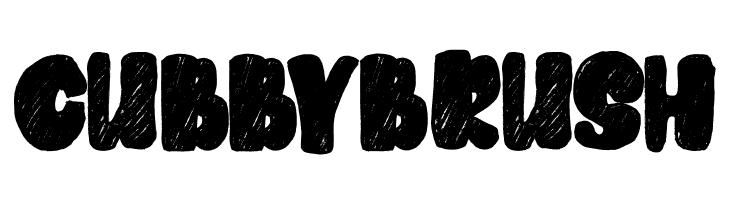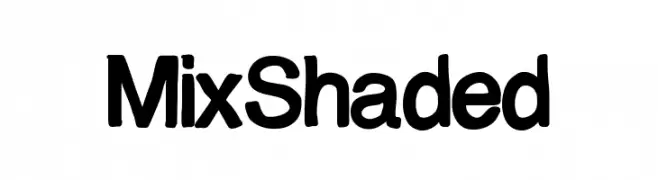
A playful, bold font with rounded edges and a friendly appearance.
A playful, hand-drawn font with a whimsical and casual style.
A classic serif font with medium contrast and rounded serifs, offering a vintage yet modern appeal.
( Fonts by madeDeduk )
Bold, modern font with characters enclosed in shield shapes.
( Fonts by Yasuko )
A bold, decorative font with characters enclosed in patterned circles.
( Fonts by Eliot Truelove )
A playful, rustic font with a hand-drawn, textured appearance.
( Fonts by Eliot Truelove )
A playful, rustic font with leaf accents and a hand-drawn texture.